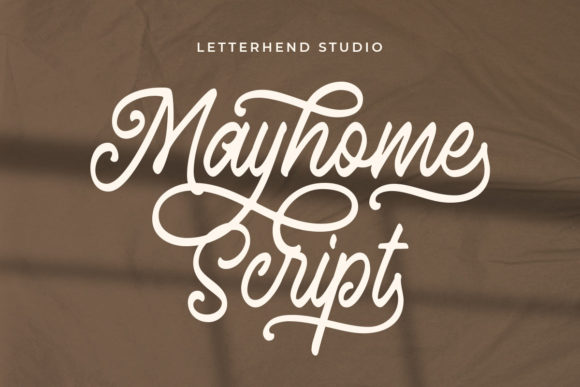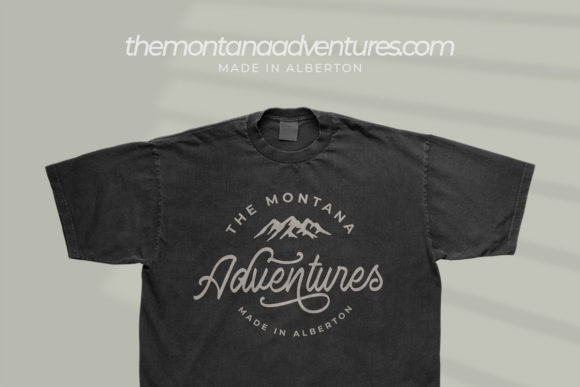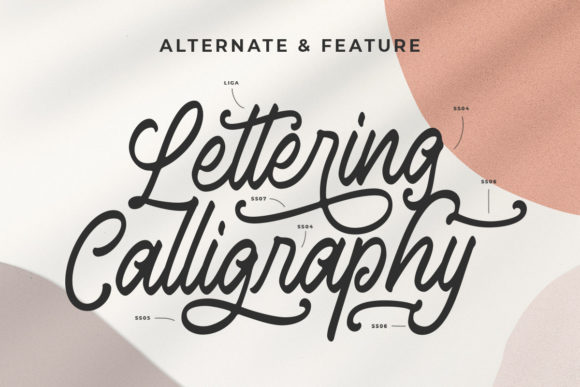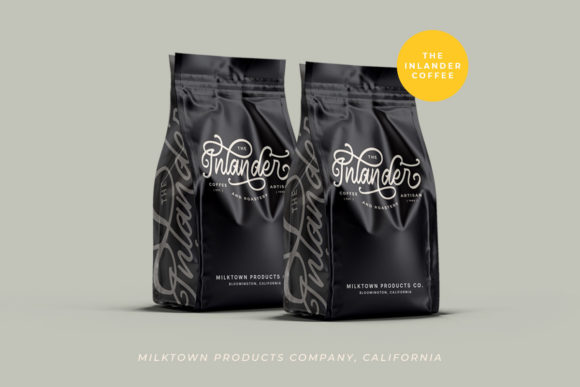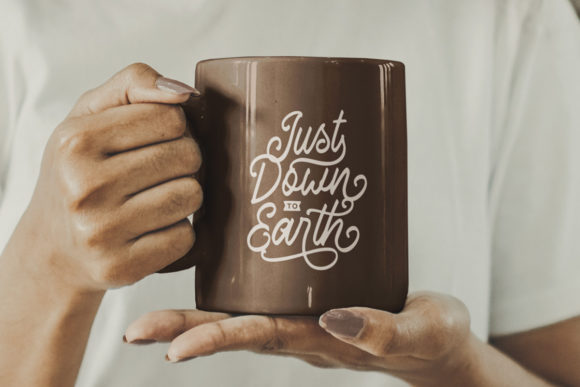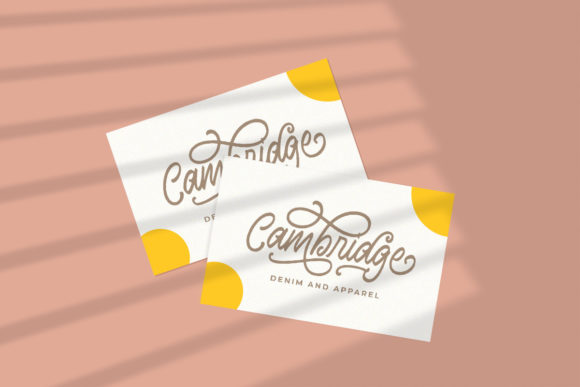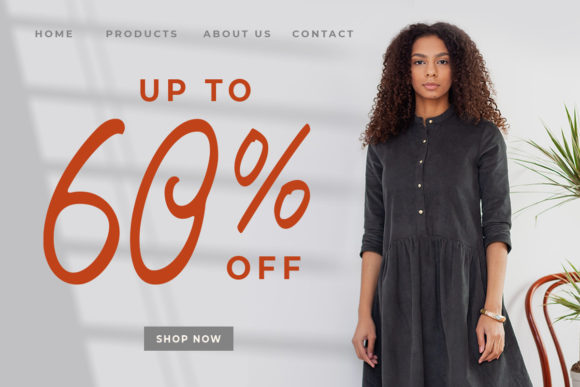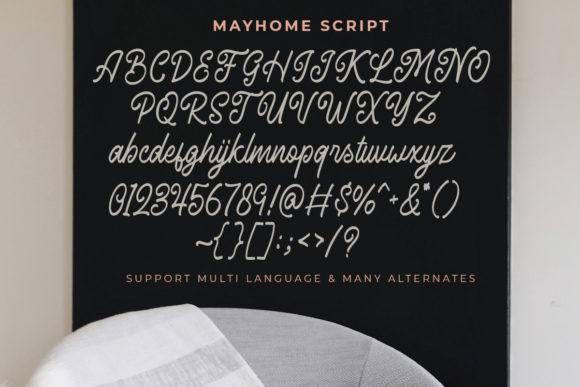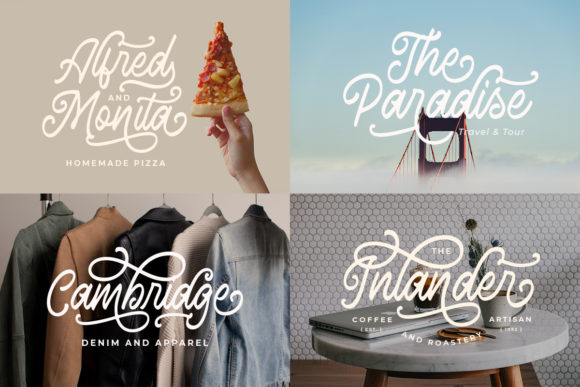
Mayhome Script Font
About Mayhome Script Font
“Mayhome Script” is not just a font—it’s a timeless embodiment of vintage elegance, reminiscent of the classic artistry of manual calligraphy ink on paper. With its refined aesthetics and sophisticated charm, this script font adds a touch of class to any project, elevating it to new levels of elegance and beauty.
Drawing inspiration from traditional calligraphy techniques, “Mayhome Script” exudes a sense of authenticity and craftsmanship that is sure to captivate the eye. Its vintage appeal evokes a bygone era of handwritten elegance, making it the perfect choice for projects seeking a touch of nostalgia and sophistication.
One of the standout features of “Mayhome Script” is its extensive collection of swashes, which allow you to create beautiful lettering with ease. These decorative elements add flair and personality to your designs, enhancing their visual appeal and making them truly stand out from the crowd.
In addition to its aesthetic appeal, “Mayhome Script” offers practicality and versatility. Its clean and legible letterforms ensure readability across various mediums and platforms, ensuring your message is effectively communicated to your audience.
In conclusion, “Mayhome Script” is more than just a font—it’s a versatile and powerful tool that empowers designers to create stunning and memorable designs with ease. Whether you’re crafting branding materials, invitations, or social media graphics, this vintage and classy script font ensures your work exudes elegance and sophistication, leaving a lasting impression on your audience.